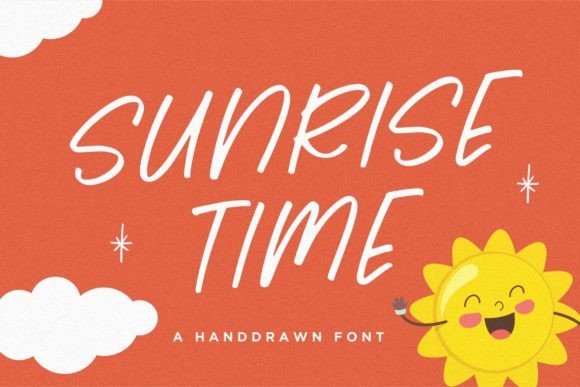
Welcome to the enchanting world of Sunrise Time Font - a font that captures the essence of a magical sunrise, transforming your designs into breathtaking works of art.
Enter the realm of Sunrise Time, a meticulously crafted script font that exudes charm and elegance. This is not just an ordinary font; it's your gateway to a world where your creativity takes flight. Its graceful curves and delicate swashes dance across the page like a gentle breeze, whispering your thoughts and emotions.
Sunrise Time is not just a font - it's an experience. Imagine the joy of crafting personalized invitations adorned with the sweet and delicate brushstrokes of Sunrise Time. Picture the allure of your business cards, each letter a masterpiece that reflects your brand's sophistication. Let Sunrise Time be the voice of your social media posts, captivating your audience with its unique charm.
With Sunrise Time, you're not just creating designs; you're telling stories. Its whimsical nature is perfect for greeting cards, adding warmth and a touch of nostalgia. Embrace the art of hand-lettering with Sunrise Time, turning simple words into works of art. Design logos that radiate elegance and uniqueness, leaving a lasting impression wherever they're seen.
Soar above the ordinary with Sunrise Time, the script font that will transform your designs into spectacular adventures. Whether you're a seasoned designer or a creative soul just starting your journey, Sunrise Time is the key to unlocking your imagination and creating designs that shine.